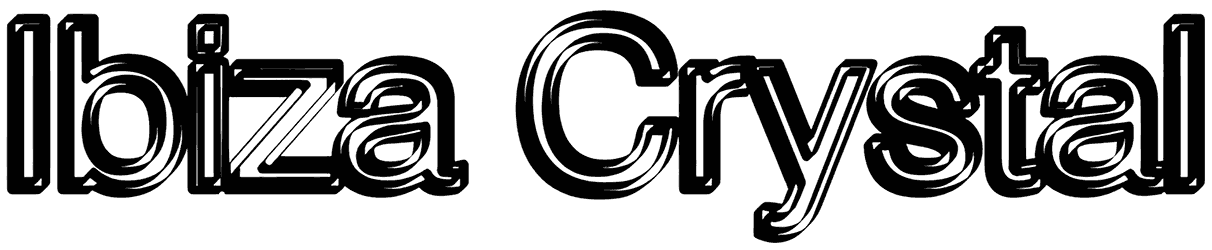
Ibiza Crystal Font
Having a stylish outlined font like Ibiza Crystal, which includes all the characters and no numerals, is a huge help in creating a polished design that will appeal to the widest possible audience.
This 3D font works wonderfully with both serious and lighthearted topics. The question is, why do you pause? You will be pleased with the results when you use Ibiza Crystal in your upcoming projects, such as business cards, cosmetics advertisements, fashion designs, and so on.